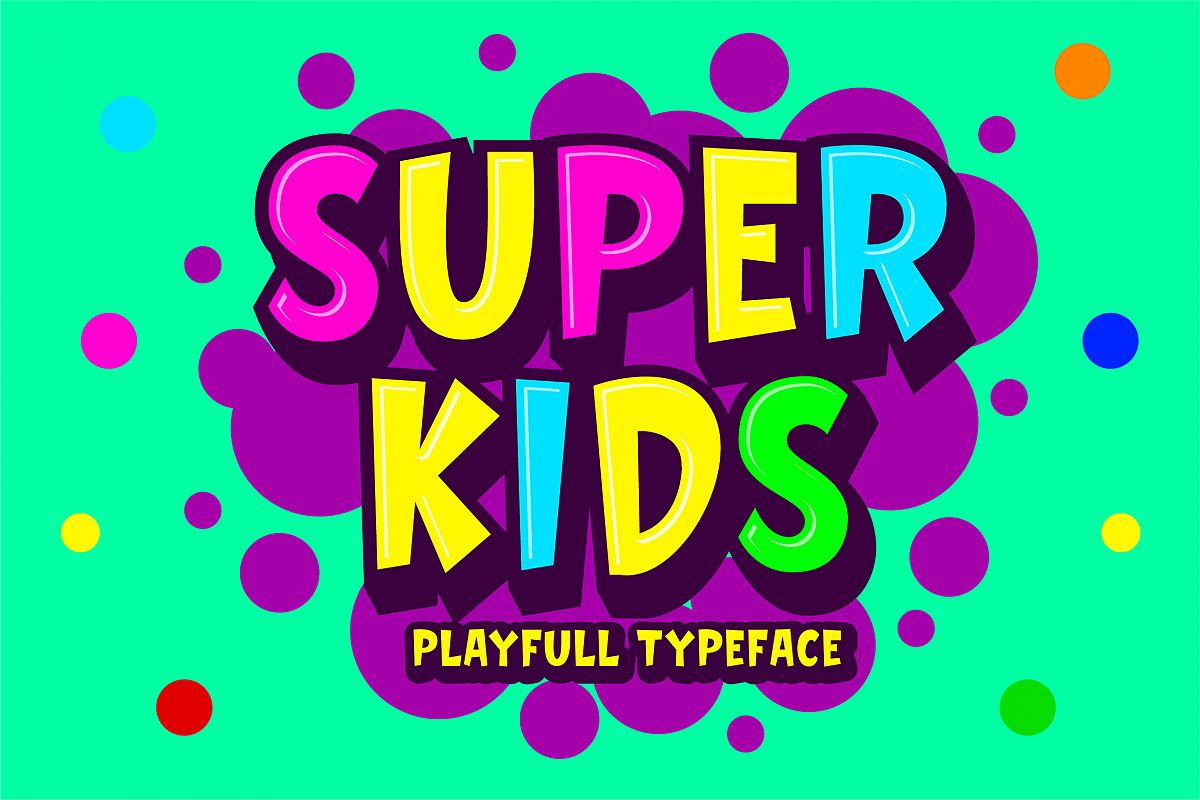
Introducing of our new product the name is Super Kids Playfull Typeface. Super Kids good for kids poster, flyer childrenbook, cartoon, comic etc
MULTILINGUAL ACCENT :- ŽžŠŒšŸÀÁÂÃÄÅÆÇÈÉÊËÌÍÎÏÐÑÒÓÔÕÖØÙÚÛÜÝßàáâãäåæçèéêëìíîïñòóôõöøùúûüýÿ
FEATURES :- Uppercase